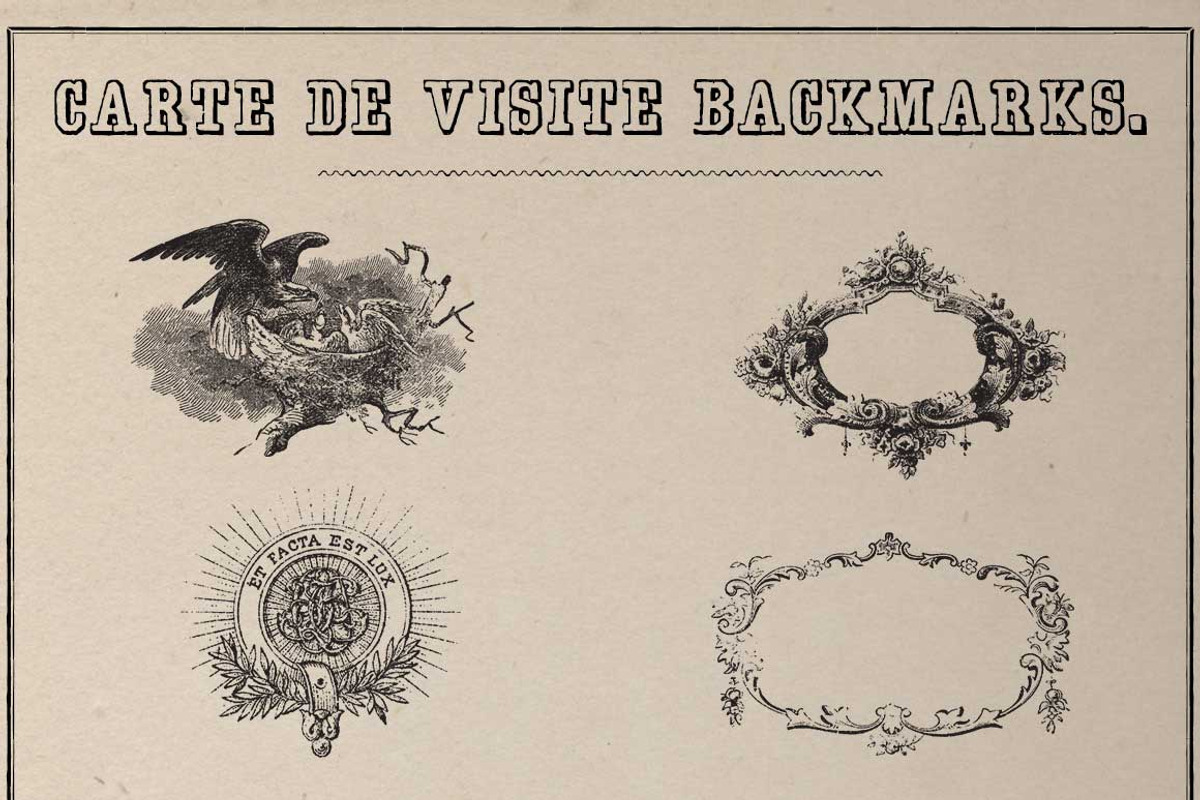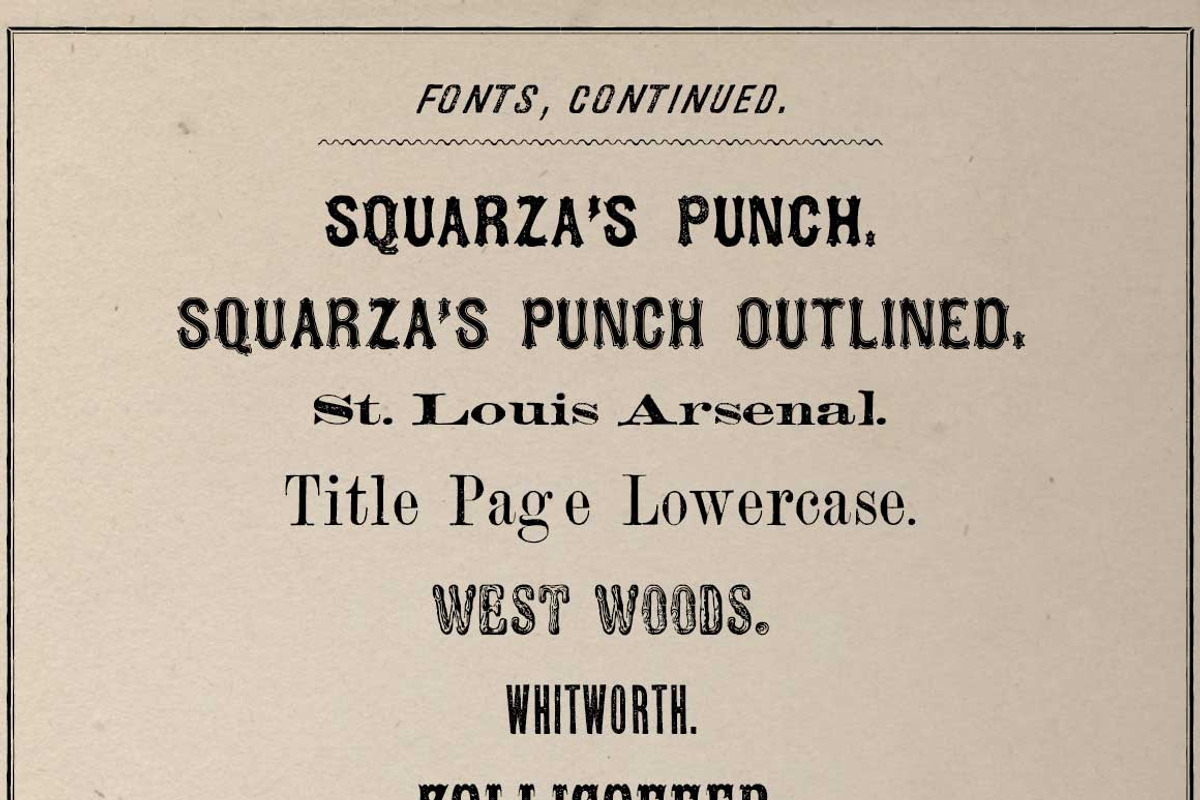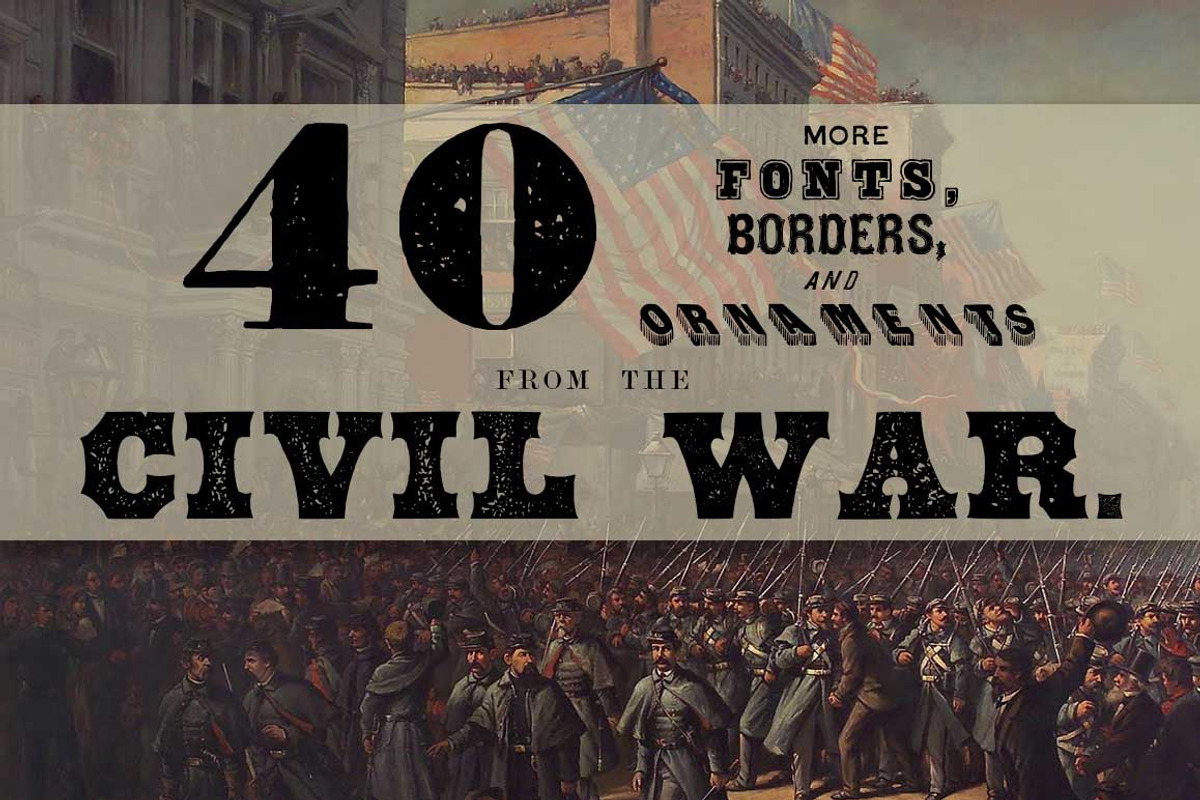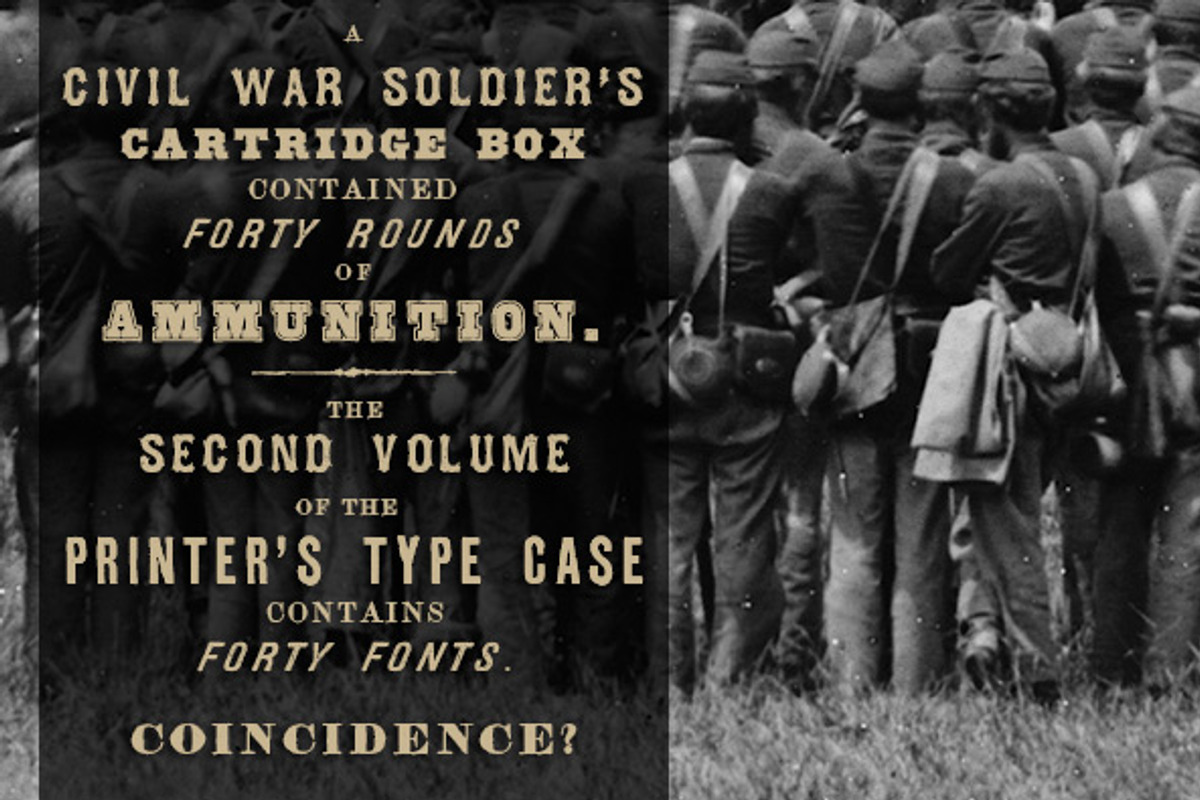
40 Fonts from the Civil War Era
40 Fonts from the Civil War Era by New Blazing Star Press is a font selected for branding, posters, packaging, typography.
Why 40 Fonts from the Civil War Era is worth a look
40 Fonts from the Civil War Era by New Blazing Star Press fits naturally into Branding, posters, packaging, typography.